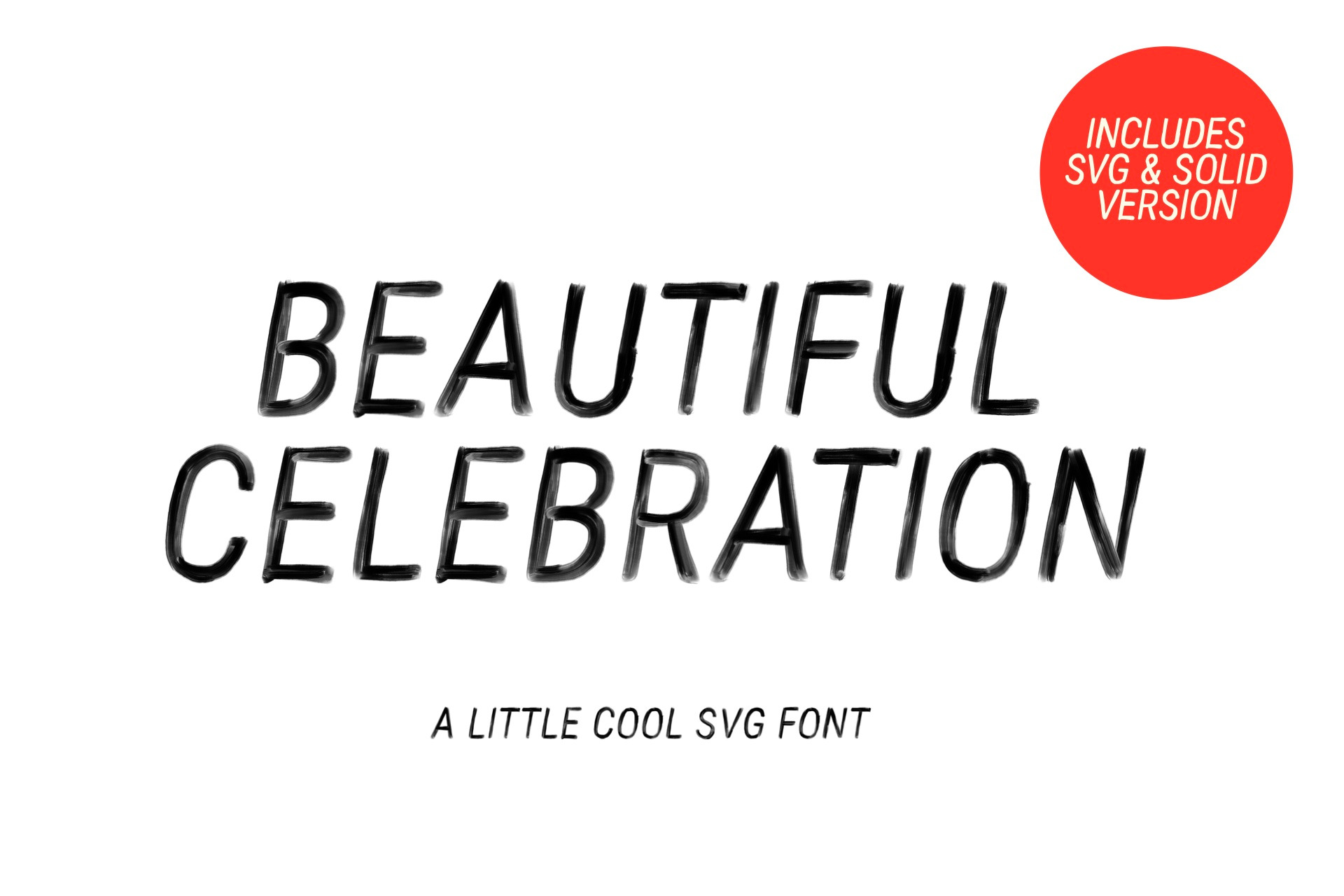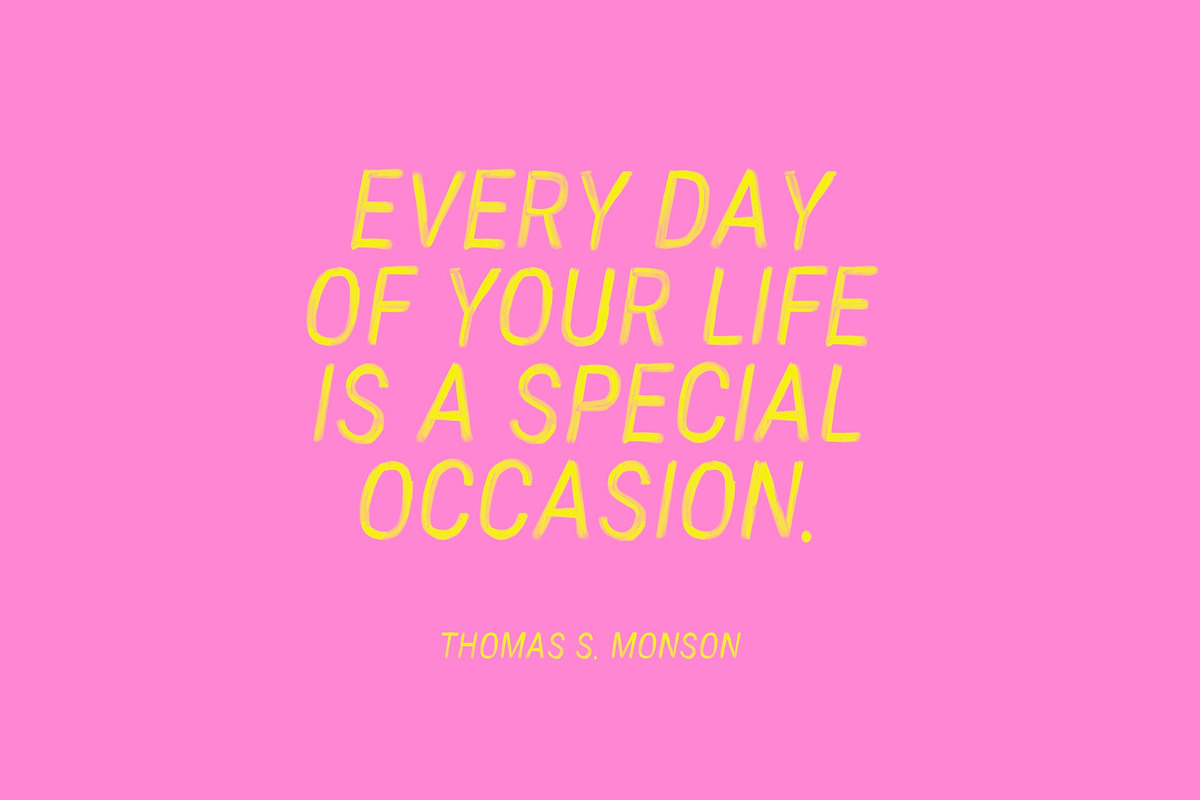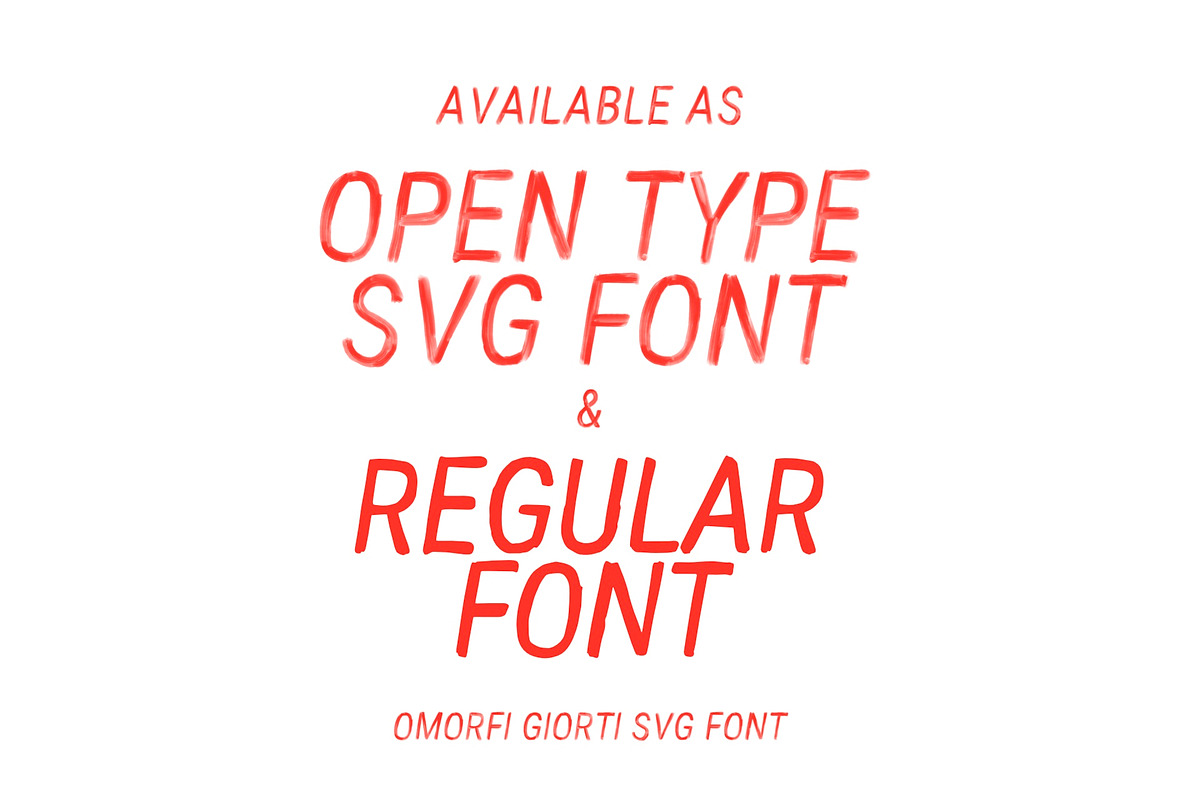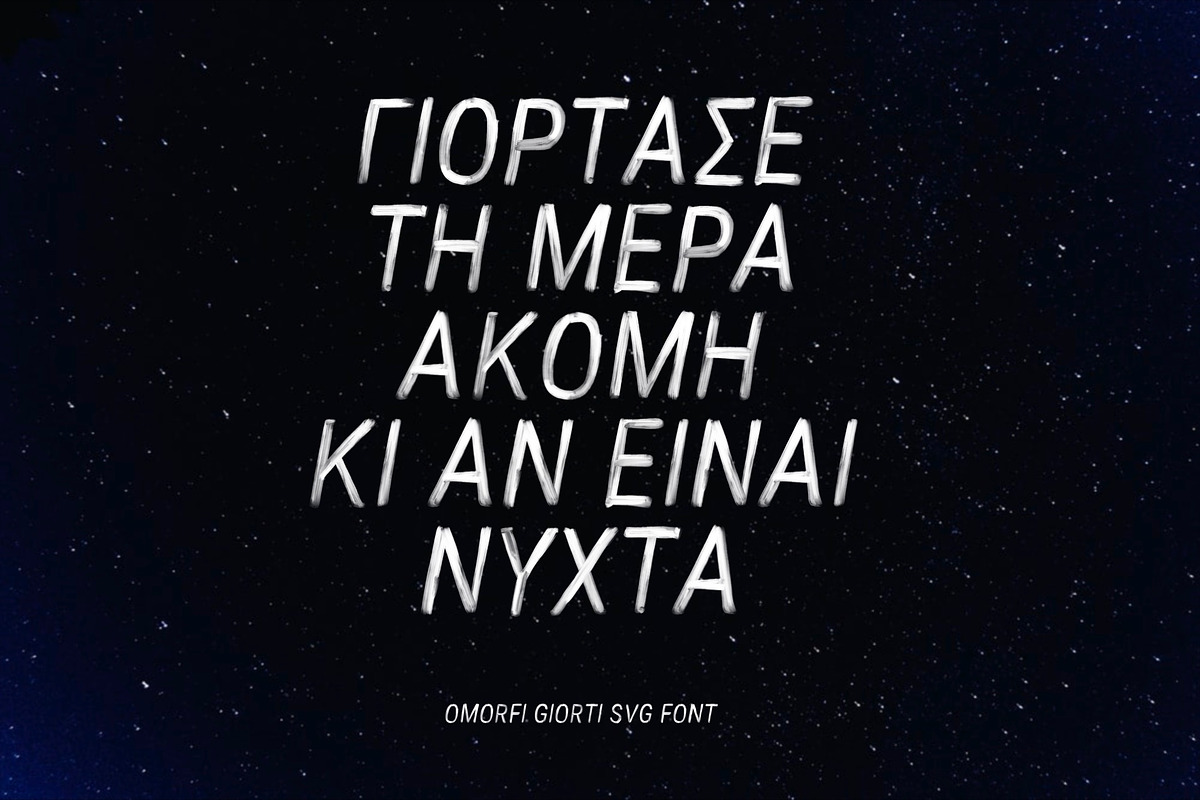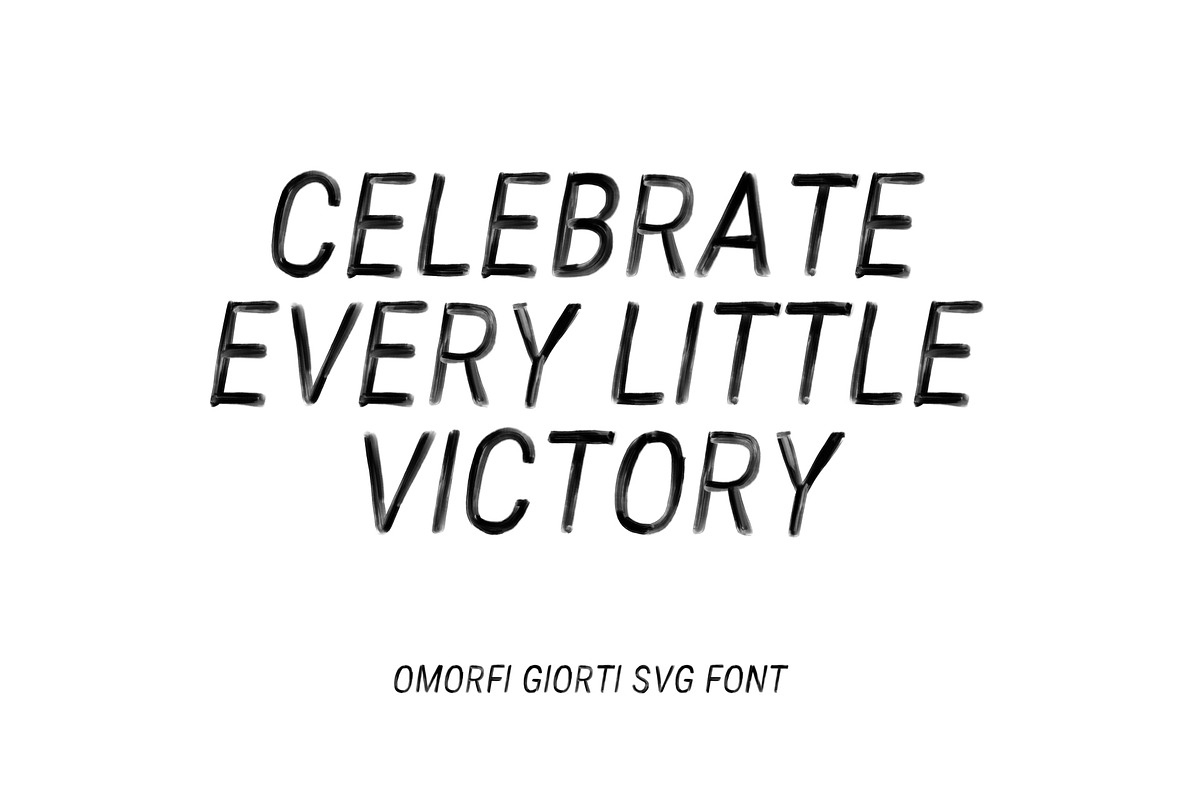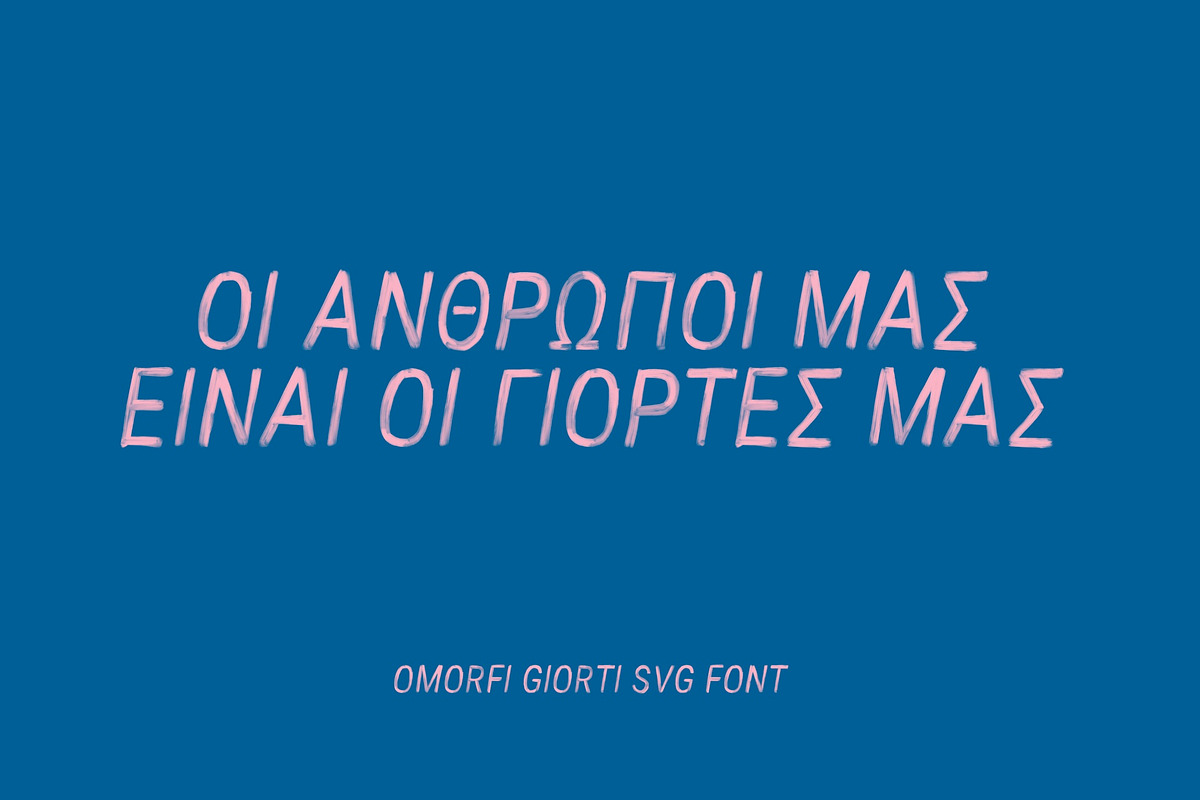
BEAUTIFUL CELEBRATION SVG FONT
Say hello to Omorfi Giorti (Beautiful Celebration)! An all caps SVG font with watercolour style textures! Create cool lettering in a snap. Perfect for bold headers and display text. Also includes a normal version with the textures removed.
Omorfi Giorti SVG – Use this version to create big and bold hand lettering with high-resolution textures.
Omorfi Giorti Solid – This is the same one but in a normal font version without textures, in order to use across all platforms.